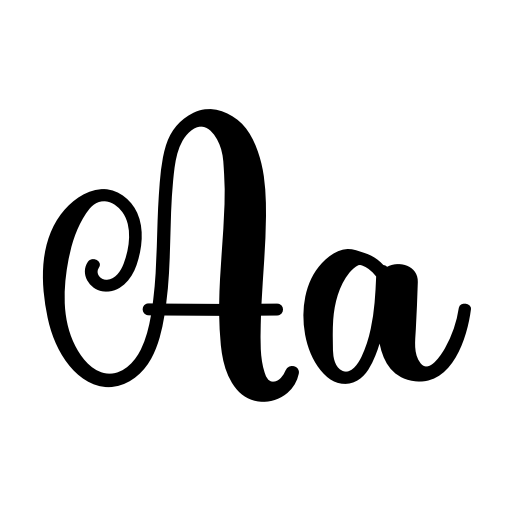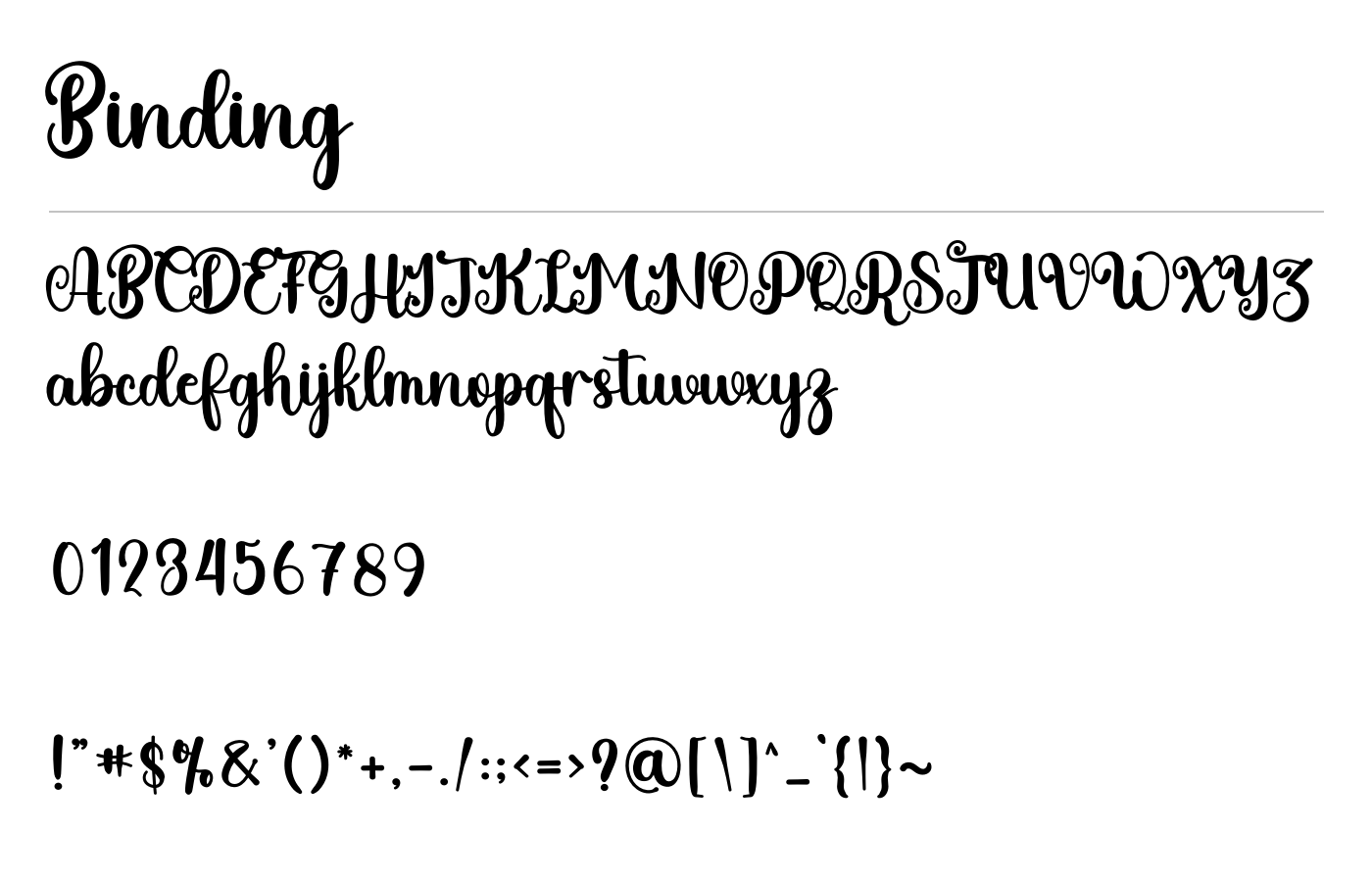
Binding Font is a playful and decorative script typeface with a lively, hand-lettered feel. It features bold, rounded strokes and whimsical curls on uppercase letters, giving it a charming and friendly personality ideal for creative branding, invitations, or playful headlines. This font works best where a warm, approachable, and artistic style is desired to add character and uniqueness.
Binding Font